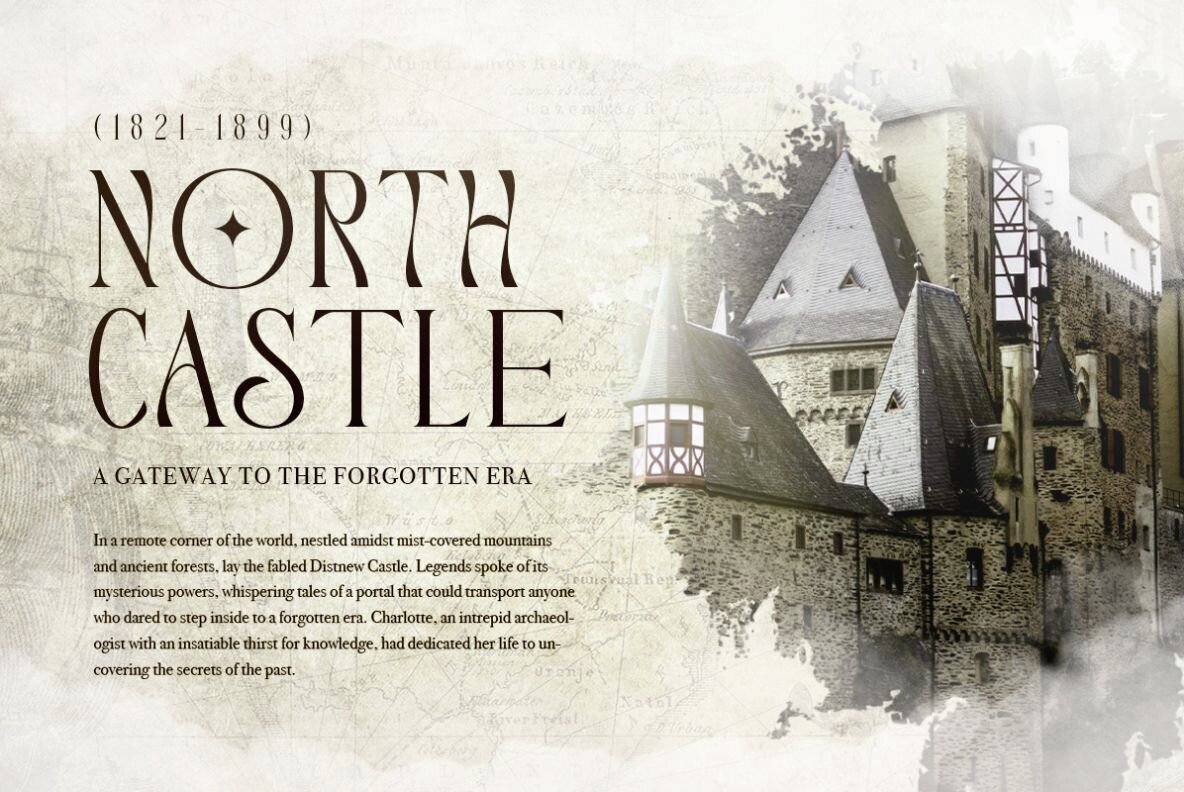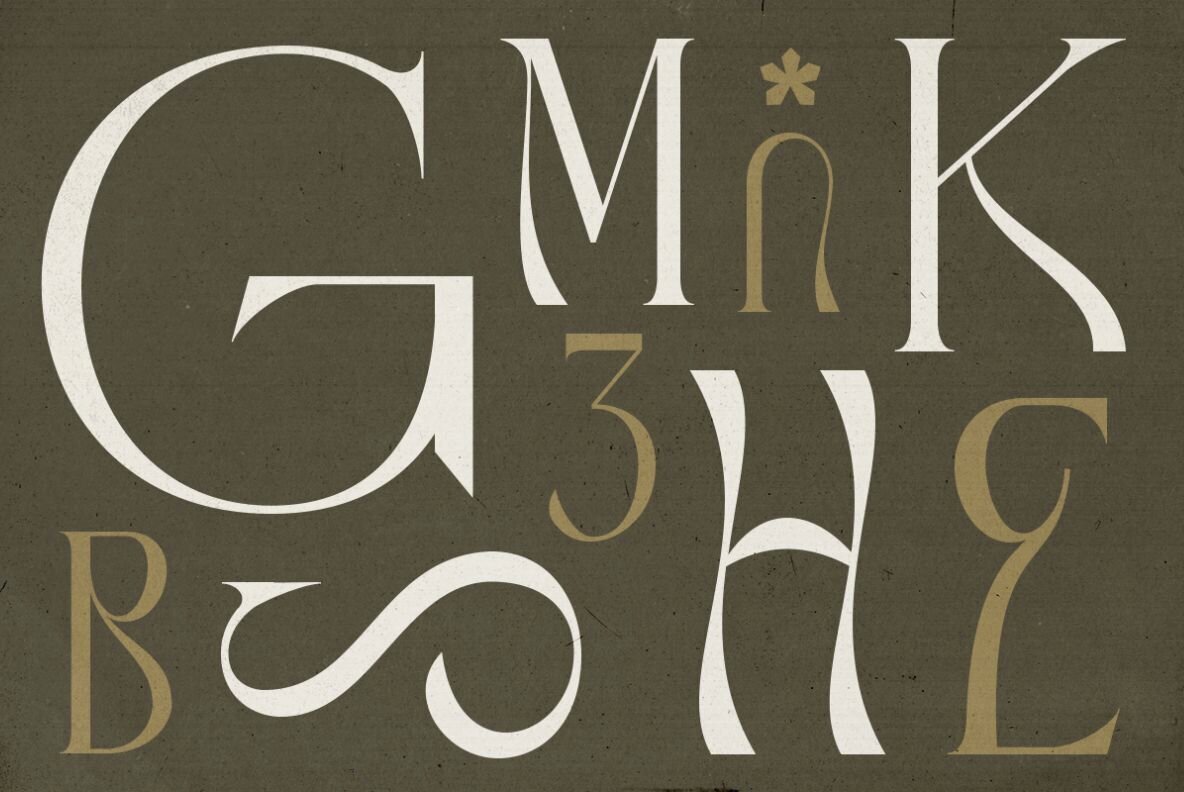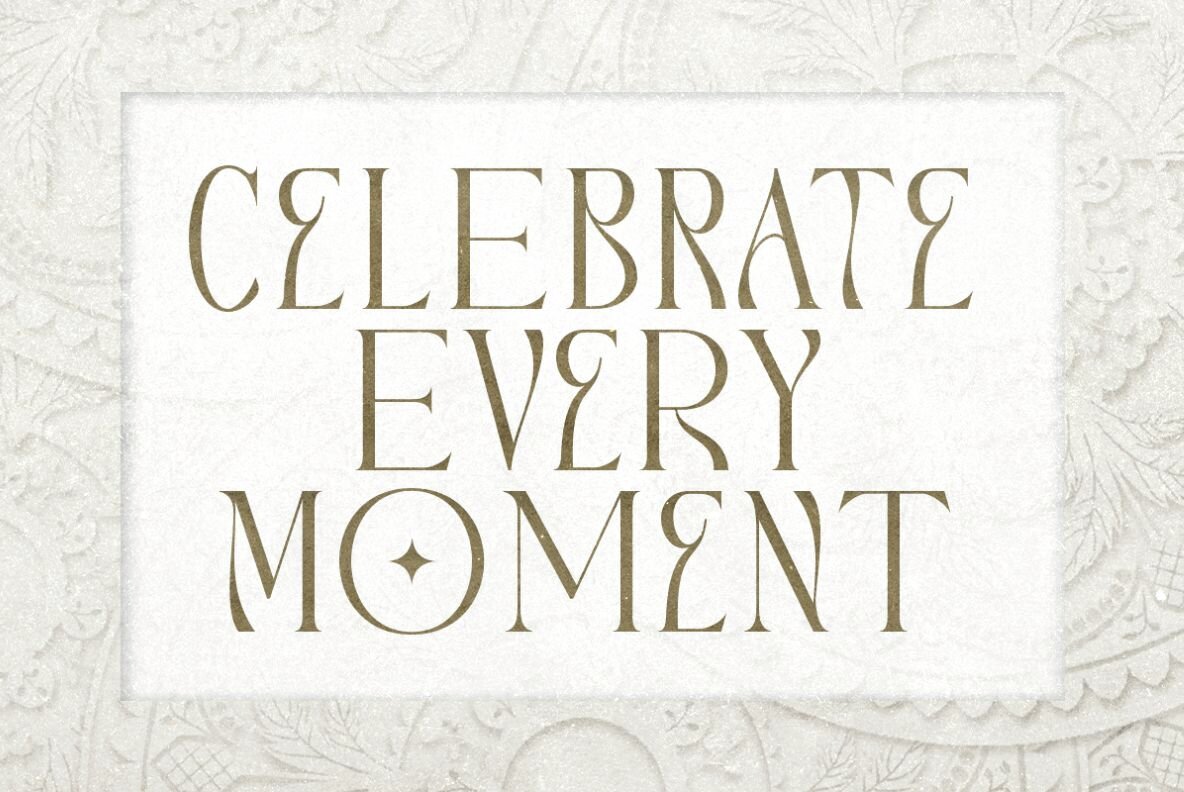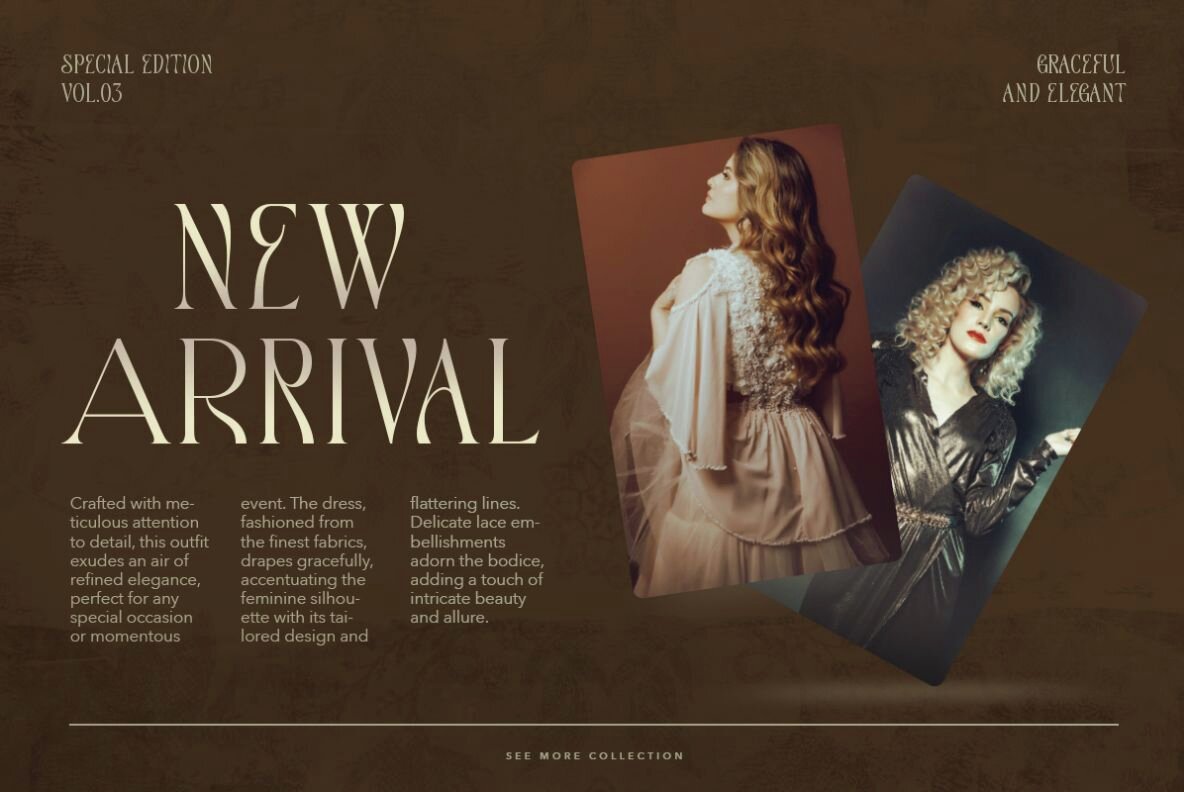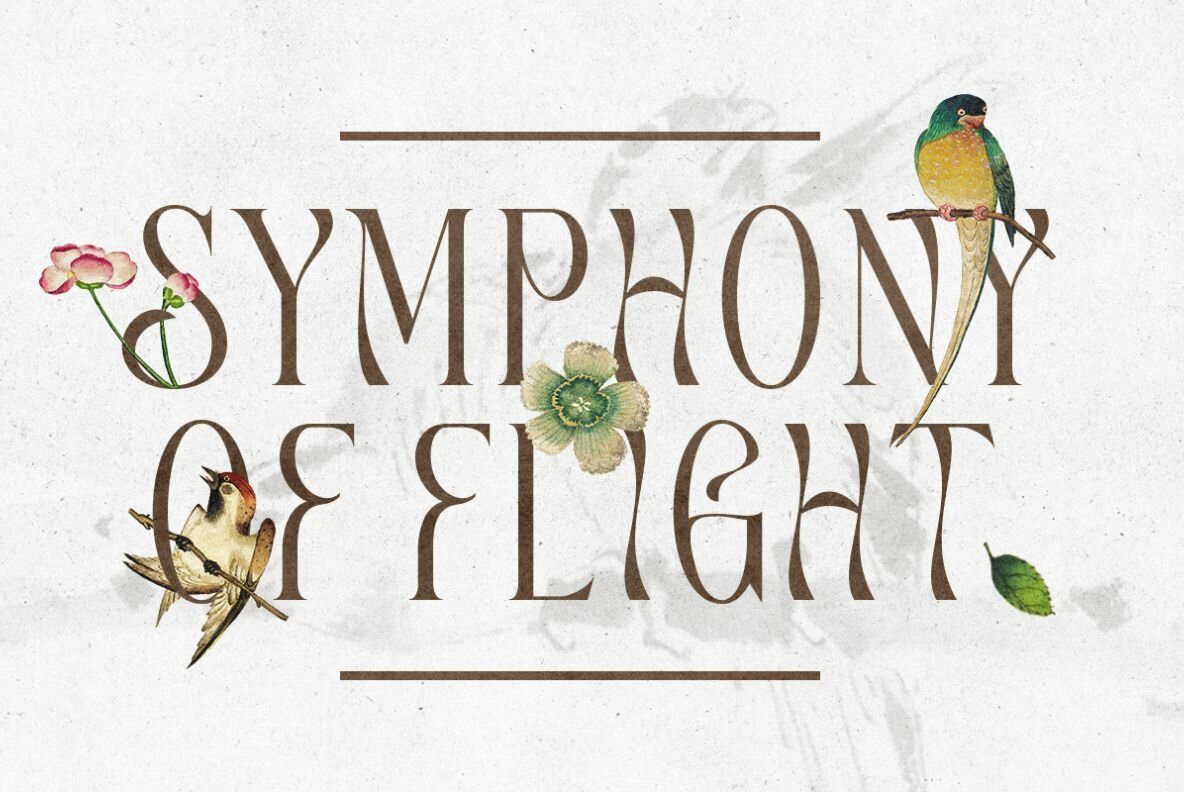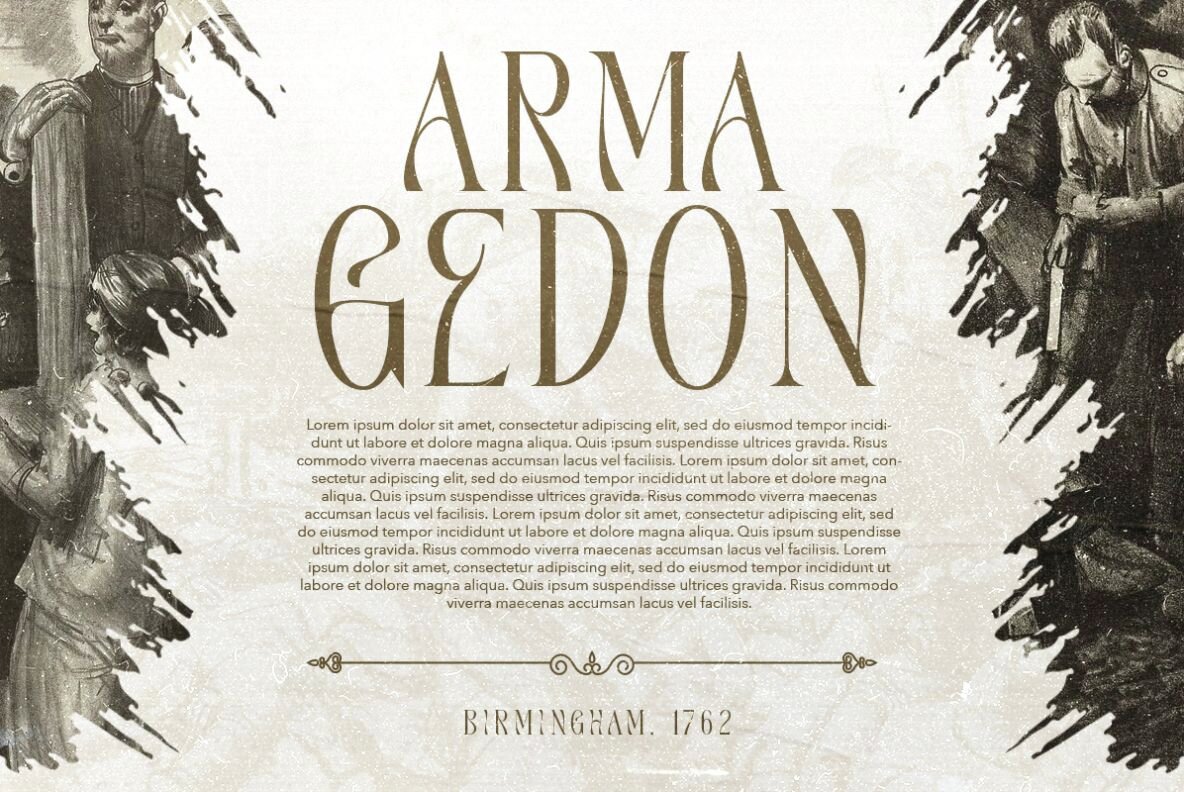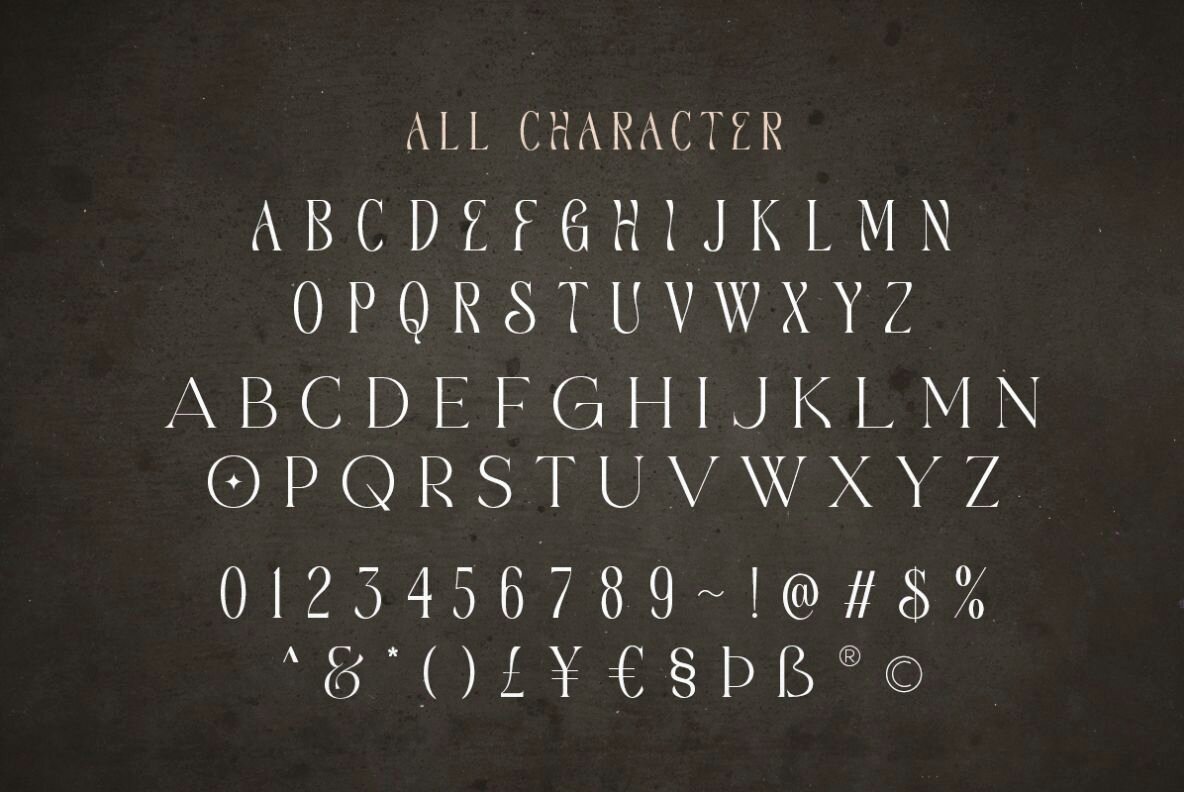
Marione Font
Marione Regular
Marione is a modern serif with twisted shape. Come with tall unique uppercase and classic wide lowercase, this font will make your project looks stunning especially when you combine them in one word. You can use this font for any purpose, such as wedding invitation, book cover, poster, and any other project that need a typeface that have unique looks. This font also support multi language!